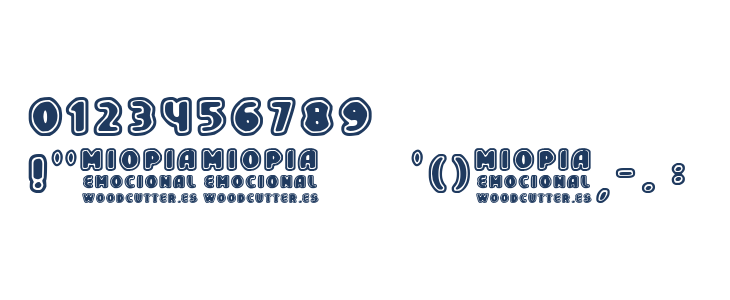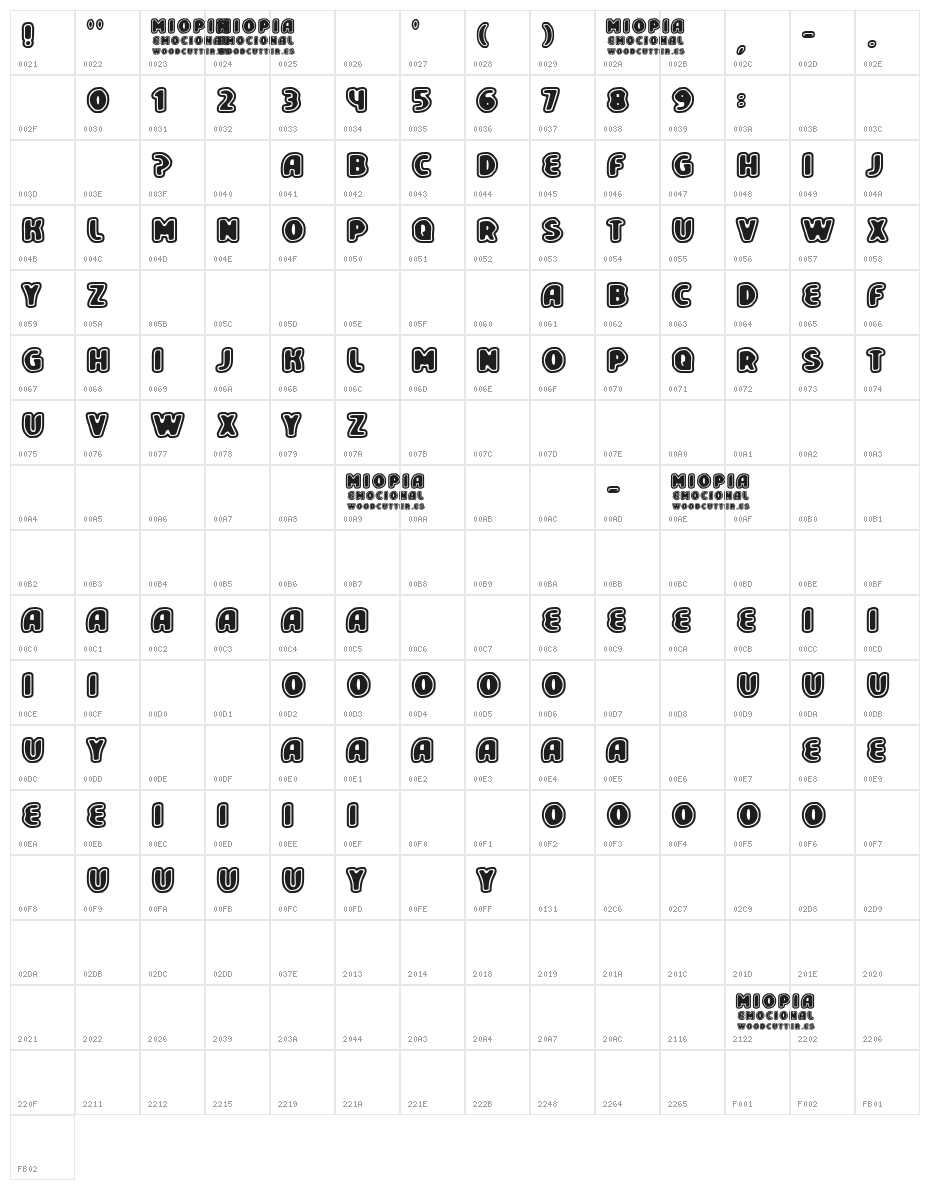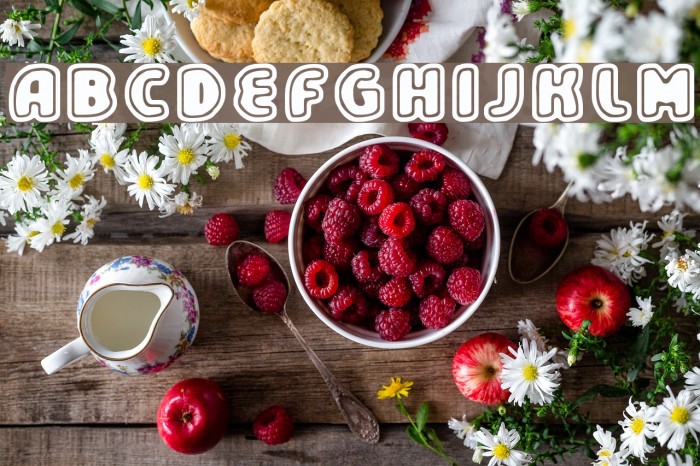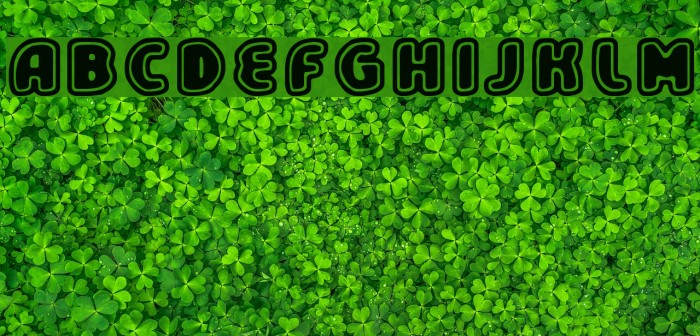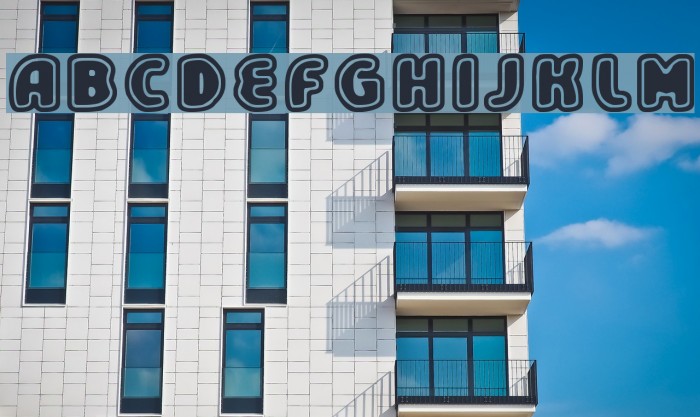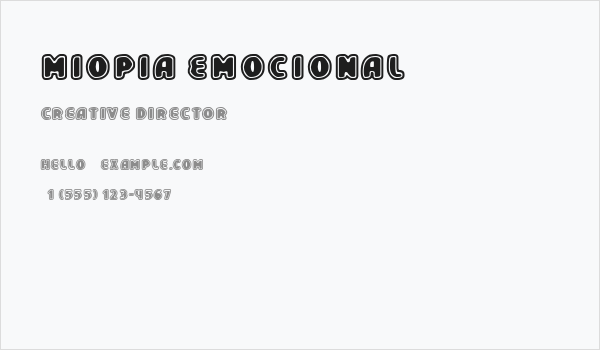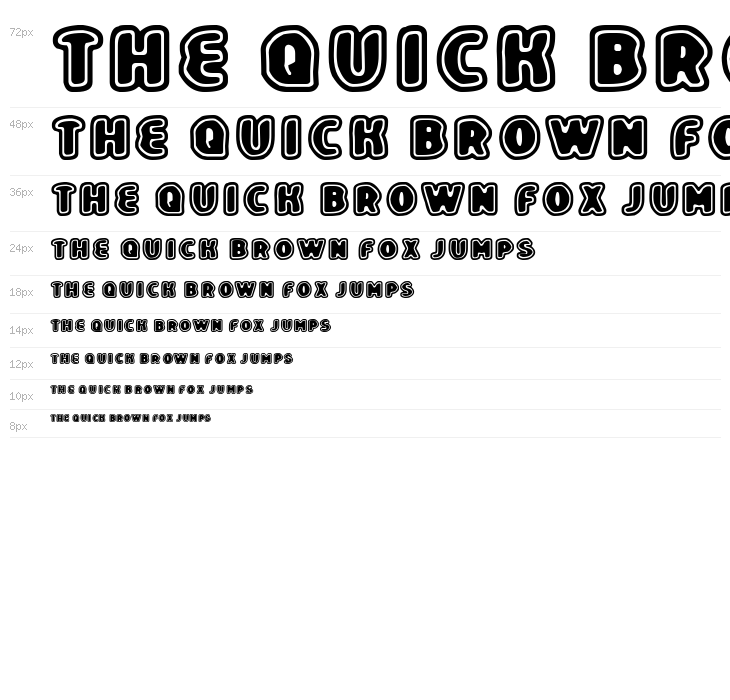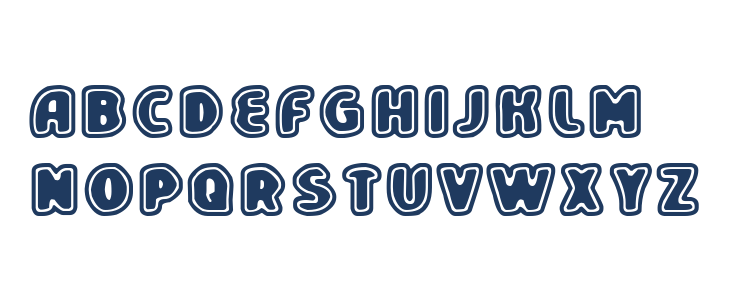
Miopia Emocional Font
Miopia Emocional Description
This font features a bold, playful style with rounded edges and a thick outline that gives it a bubble-like appearance. The characters are uniformly wide, creating a sense of balance and consistency across the alphabet. The uppercase and lowercase letters share a similar design, enhancing the font's cohesive look. The numbers and special characters maintain the same bubbly aesthetic, making them easily recognizable and visually appealing. This font's unique style is perfect for projects that require a fun and engaging typeface.
MIOPIA-EMOCIONAL UPPERCASE
MIOPIA-EMOCIONAL LOWERCASE
MIOPIA-EMOCIONAL OTHER CHARS
| Overall Style | Playful, Modern |
| Proposed Projects | Ideal for children's books, playful branding, posters, and party invitations. |